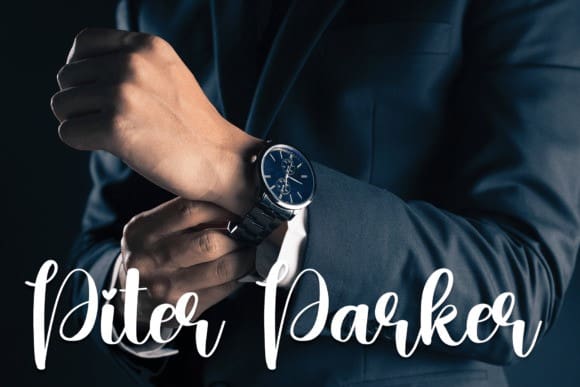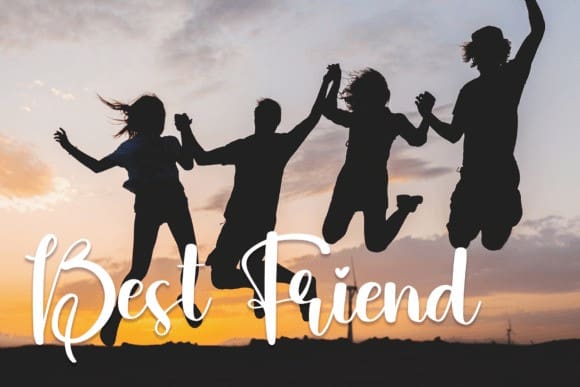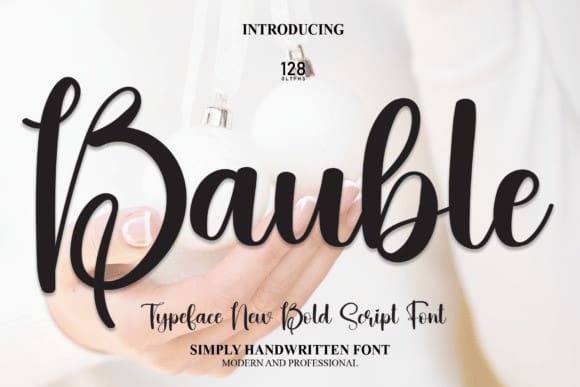
Bauble Script Font
Bauble Script Font, is a cool and neat handwritten script font. It maintains its classy calligraphic influences while feeling contemporary and fresh. Fall in love with it and bring your projects to the highest levels!